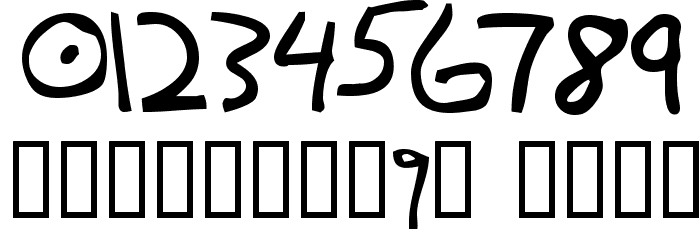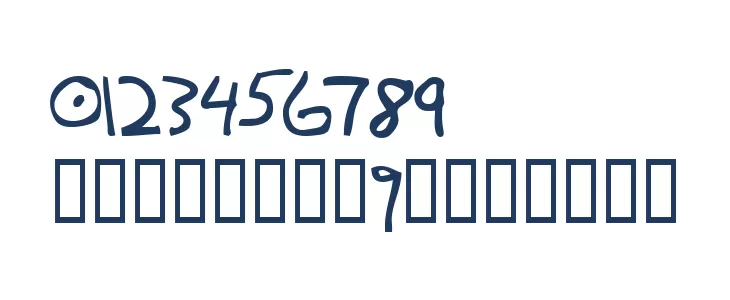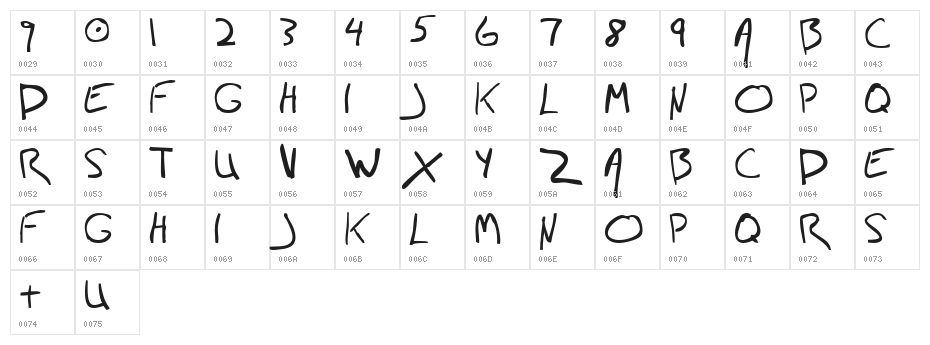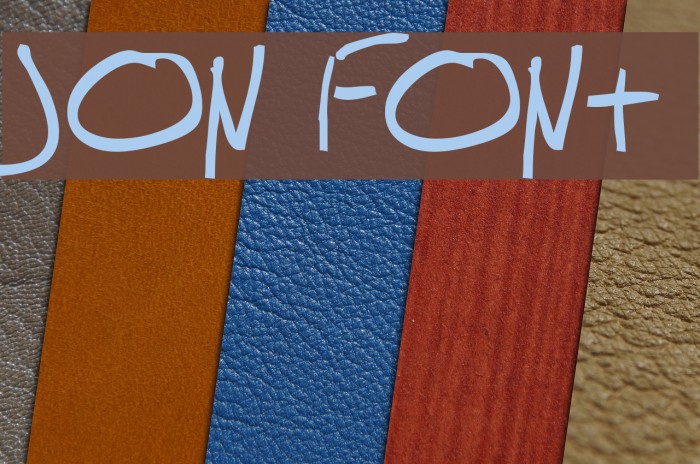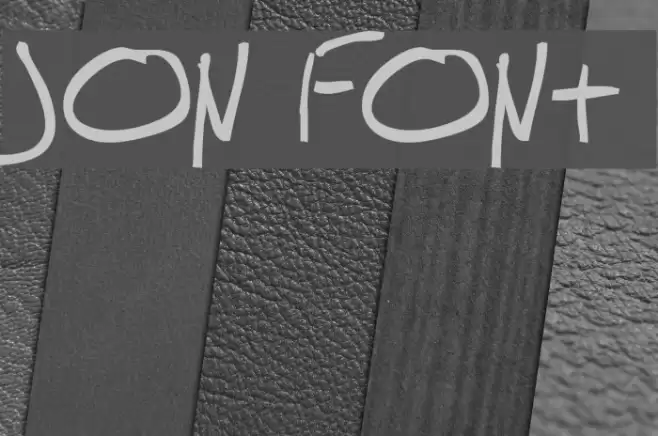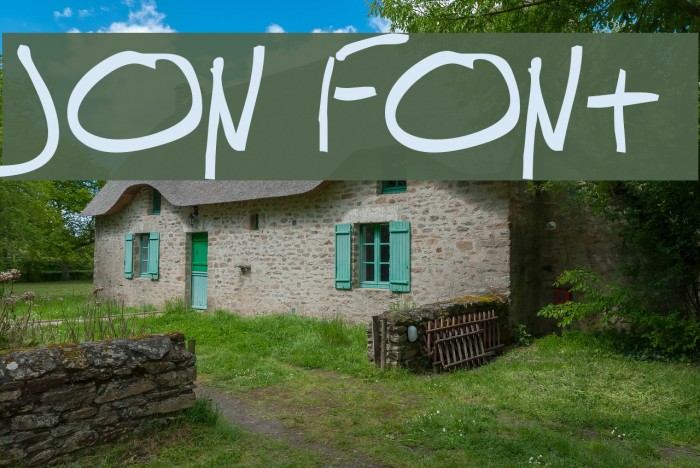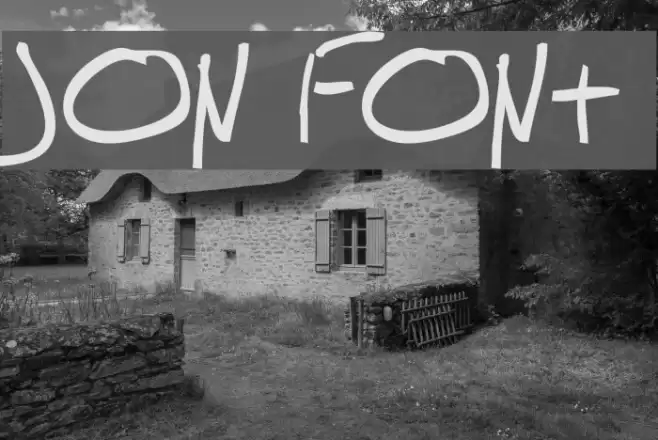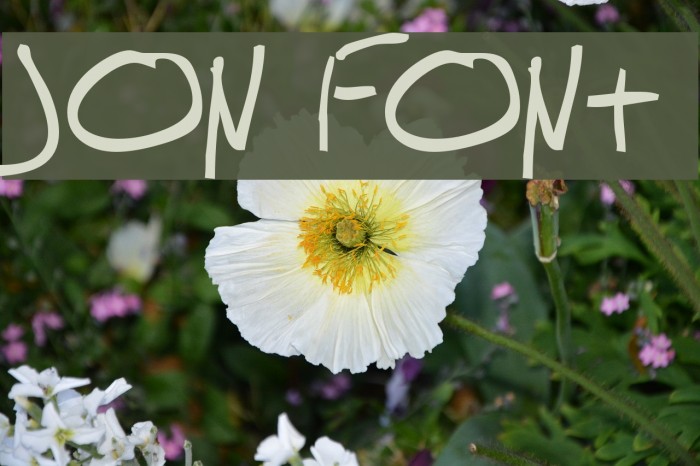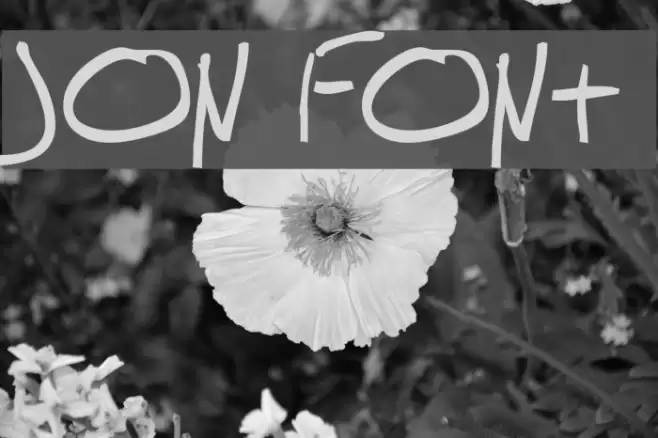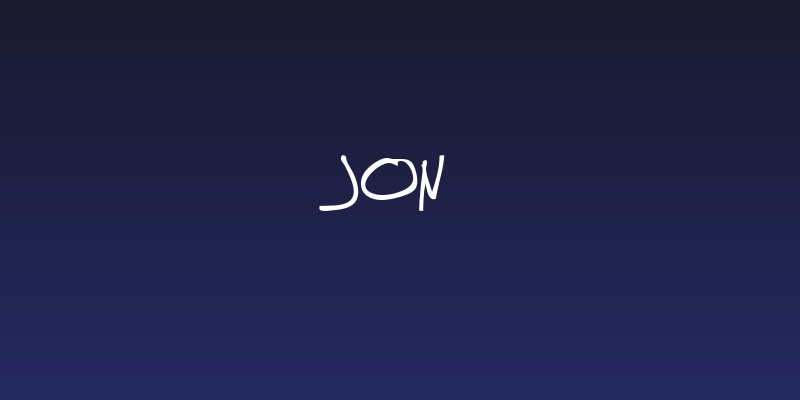
Jon Font
Jon Description
This font exhibits a playful and casual handwritten style, characterized by its uneven strokes and slightly irregular letterforms. The uppercase and lowercase letters maintain a consistent flow, giving it a natural and organic appearance. The numbers and special characters follow the same informal style, making it suitable for projects that require a personal touch. The font's overall appearance is dynamic and energetic, with a sense of spontaneity and creativity. Its unique style can add a distinctive flair to any design, making it stand out in a variety of contexts.